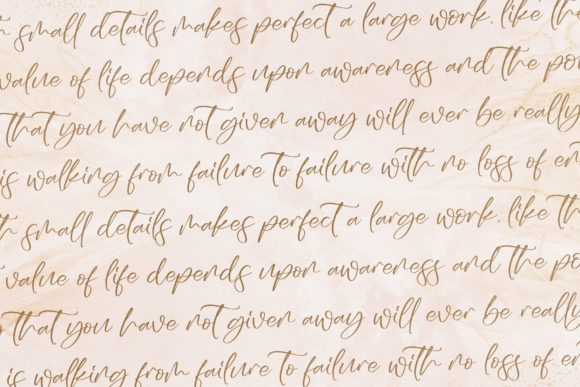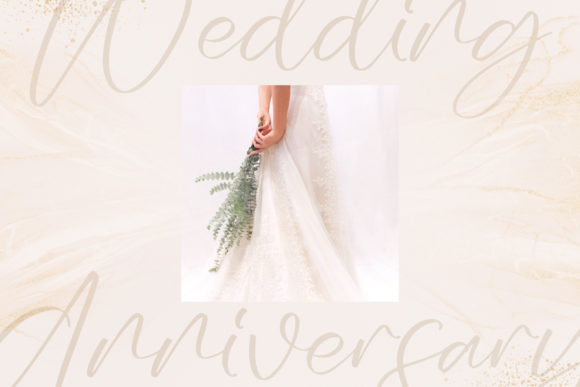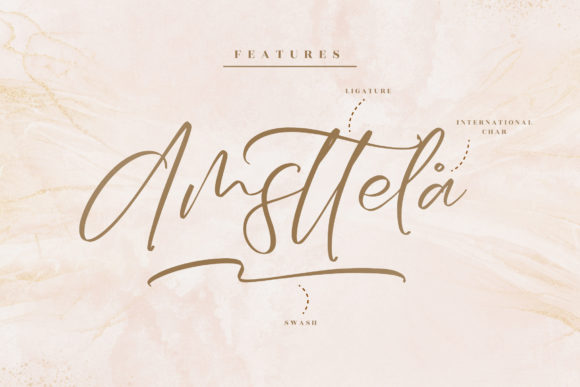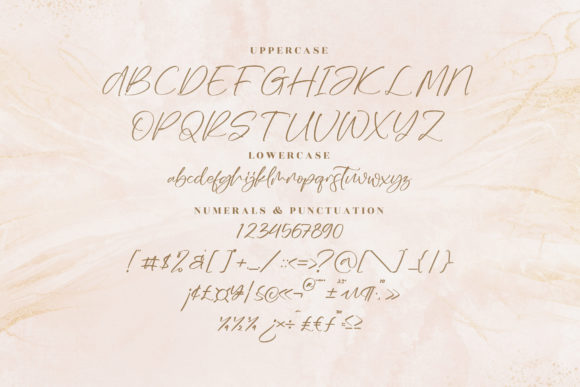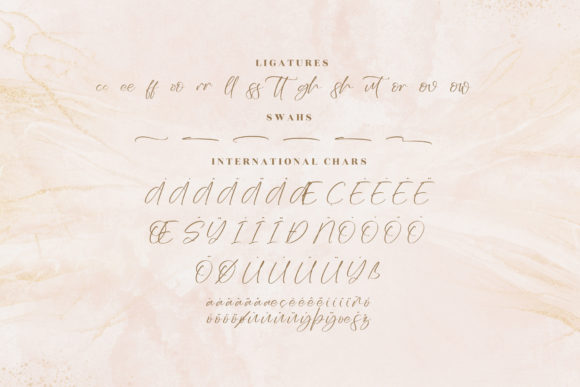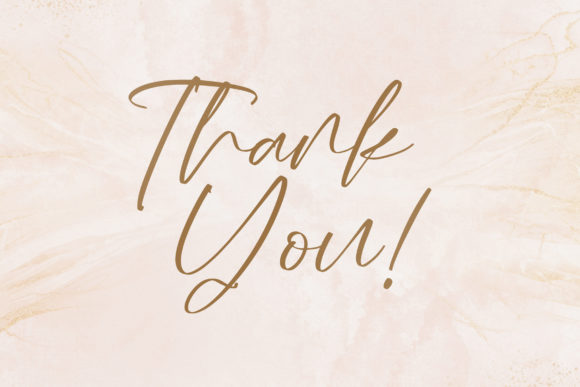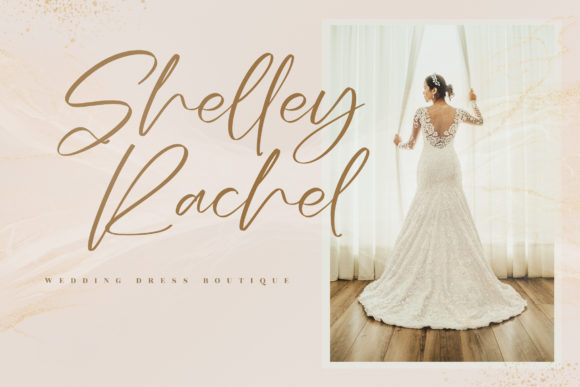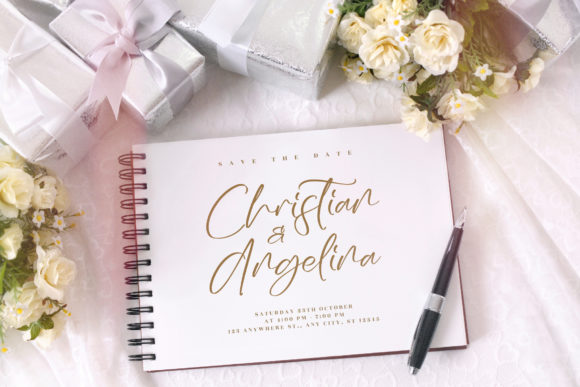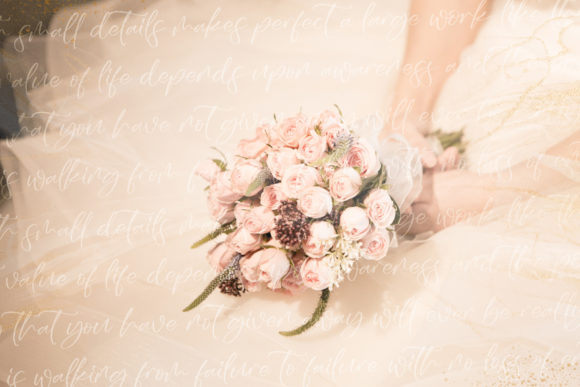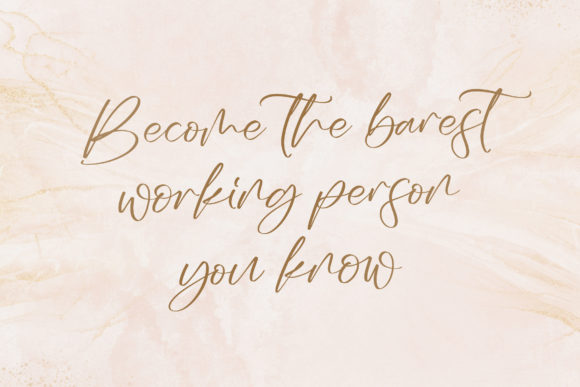
Sashmitha Whitmore Font
About Sashmitha Whitmore Font
Sashmitha Whitmore is a stylish and delicate script font. It has a clean, thin and smooth vibe and it will be a hit for any design that you want to add it to.